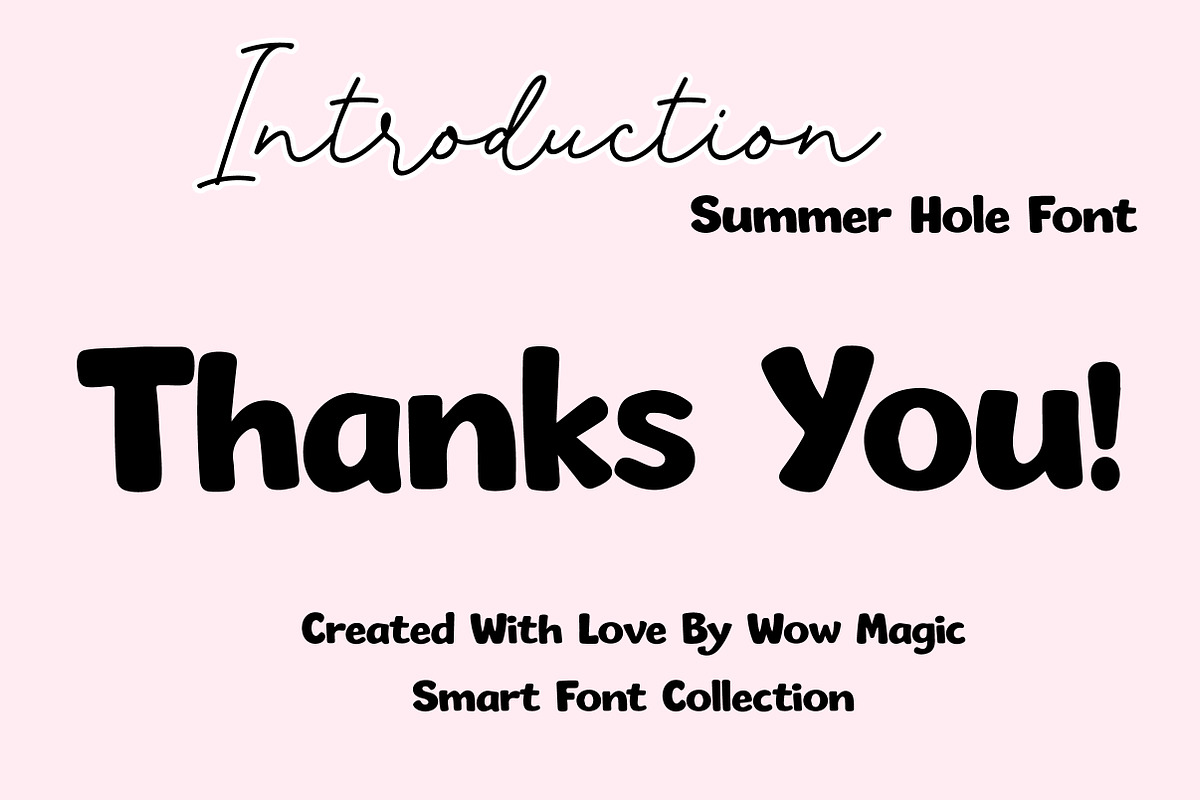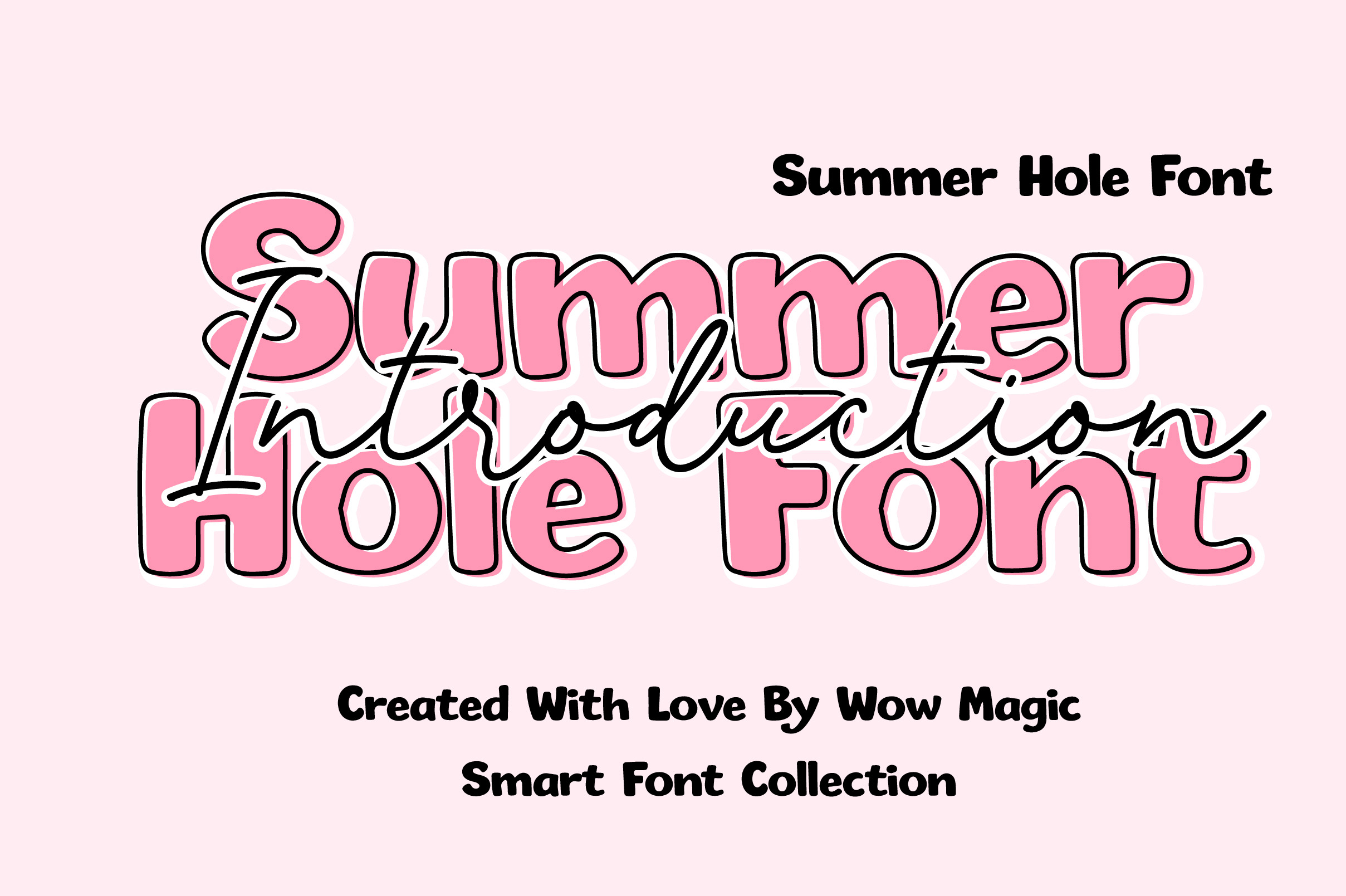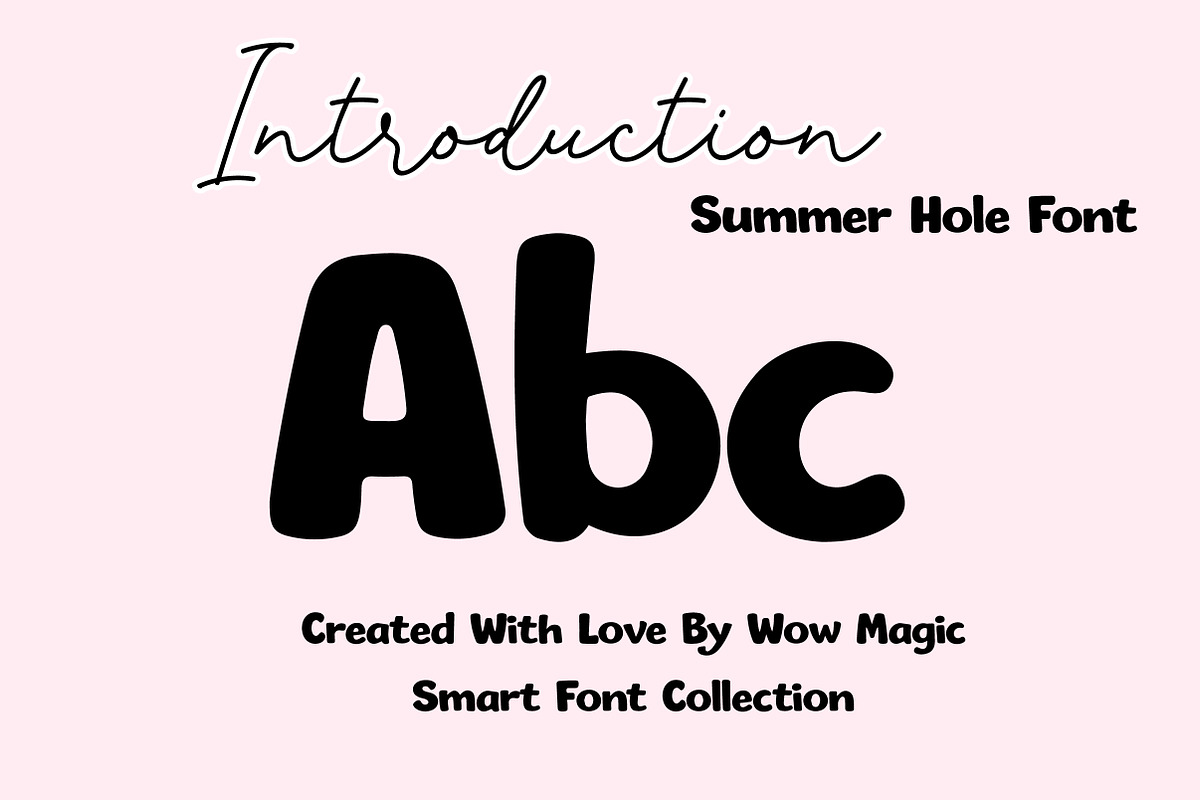
Summer Hole Font
Summer Hole Font is a bold and playful display font designed with thick rounded shapes and distinctive hollow-style counters that give each letter a unique and lively personality. Its smooth curves and chunky structure create a fun, friendly appearance that instantly stands out in creative designs.
The font combines a modern playful style with strong readability, making it perfect for summer-themed graphics, kids branding, posters, packaging, logos, social media graphics, and cheerful headline designs. The rounded forms and bold weight bring a warm and energetic vibe that feels lighthearted and engaging.
Summer Hole Font is ideal for designers who want a typography style that feels bright, fun, and eye-catching. Whether used for seasonal promotions, playful branding, or creative display projects, this font adds a joyful and energetic character to any design.